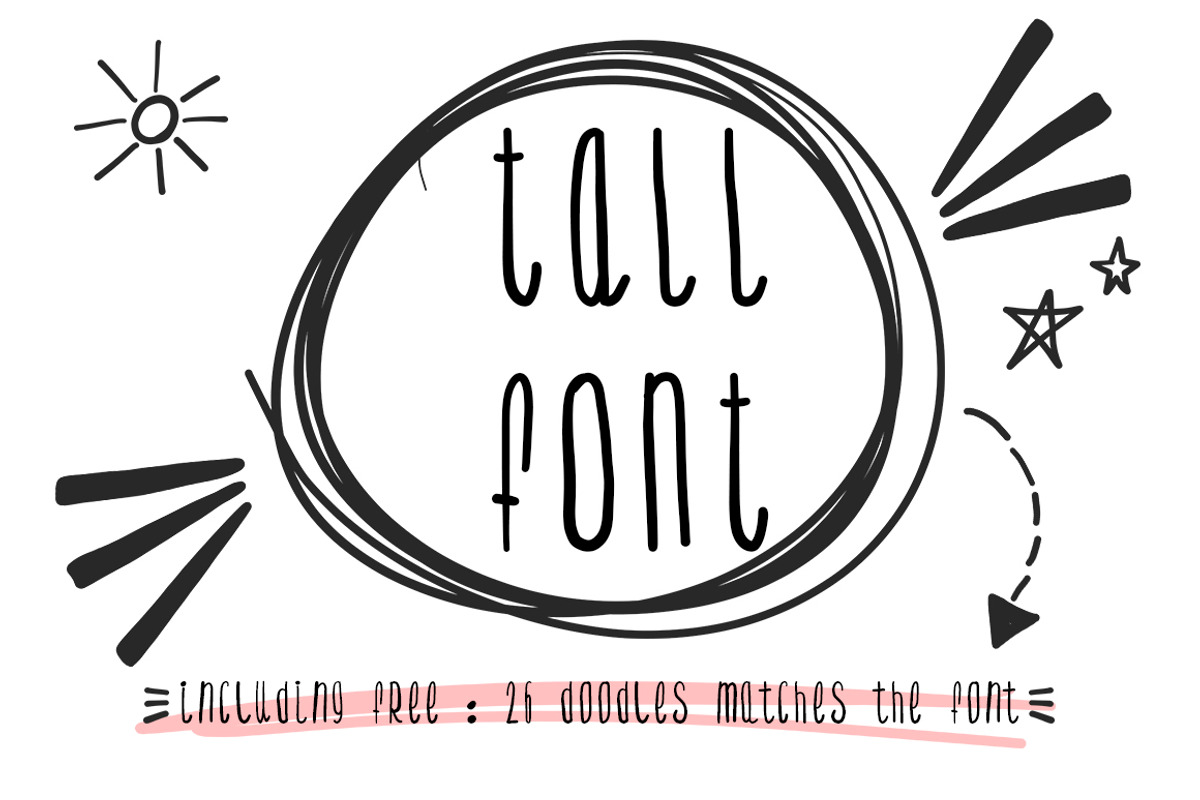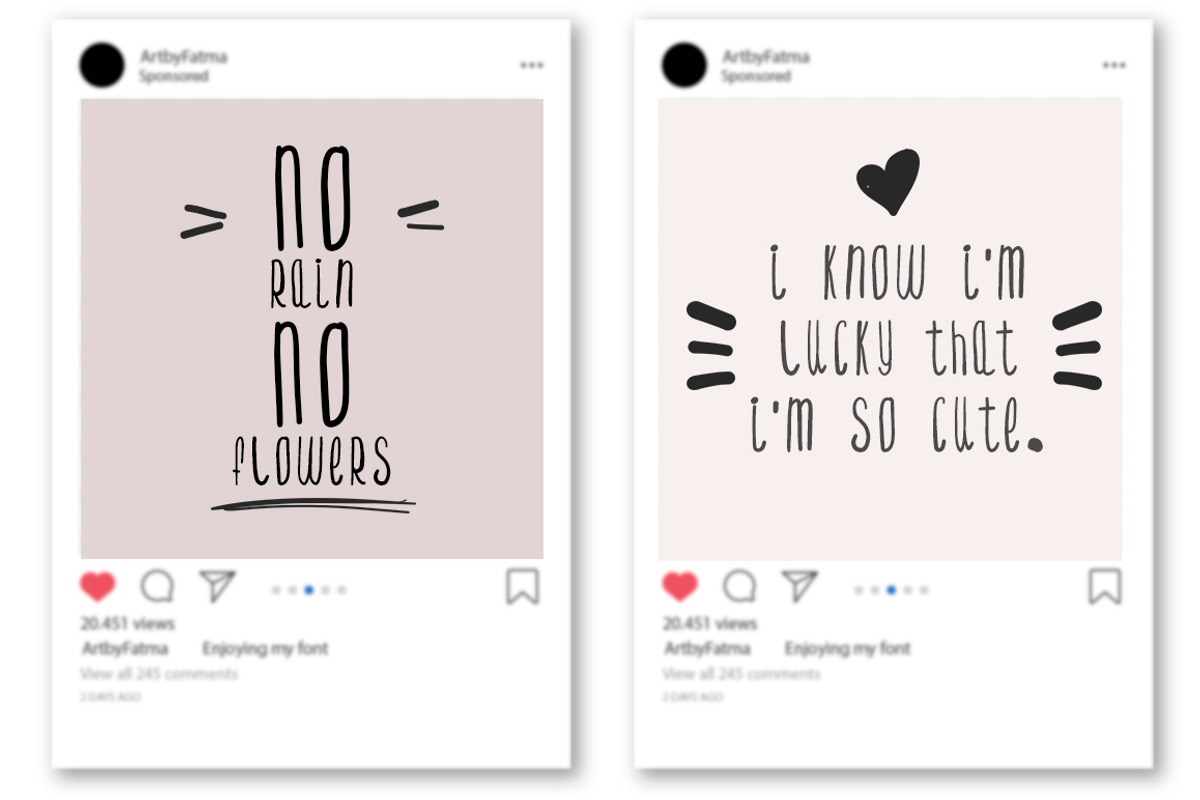
The Tall Font (Hand written)
Hand written , fun , cute , naughty and Tall. Also included FREE Doodles files that match the style of the font to be used with it .
This font is only One case font .